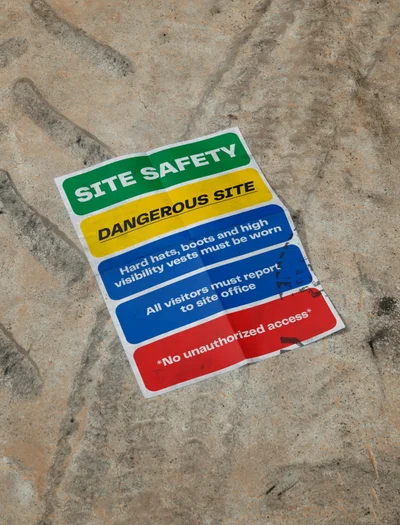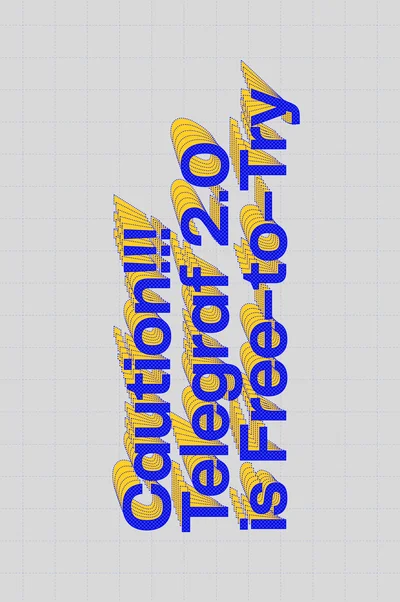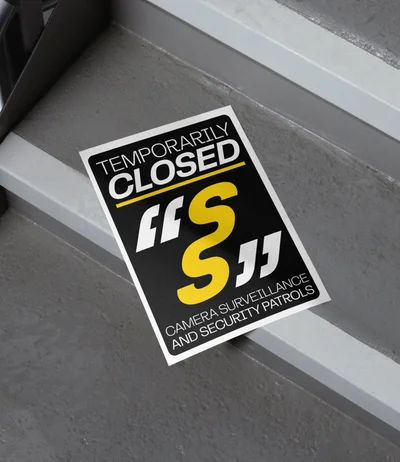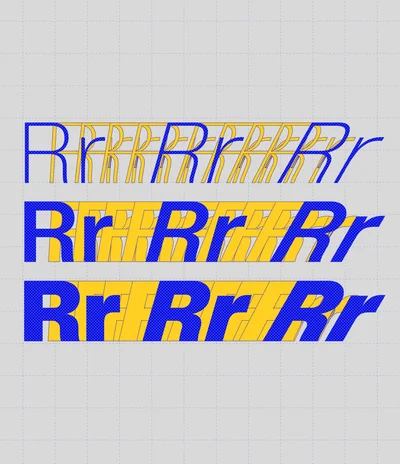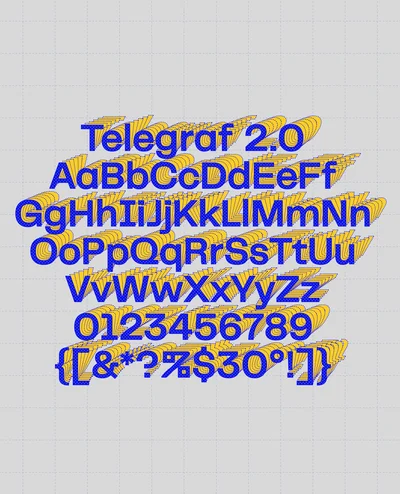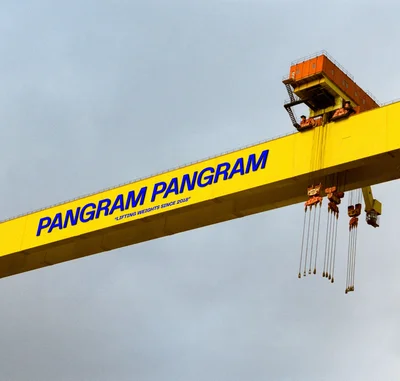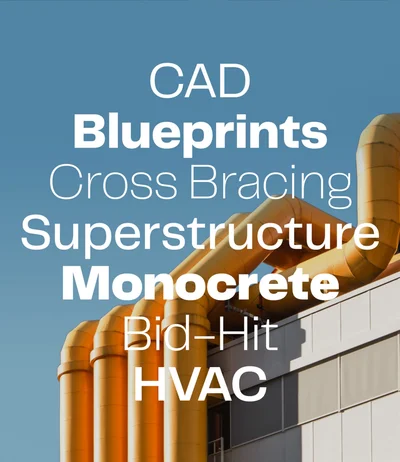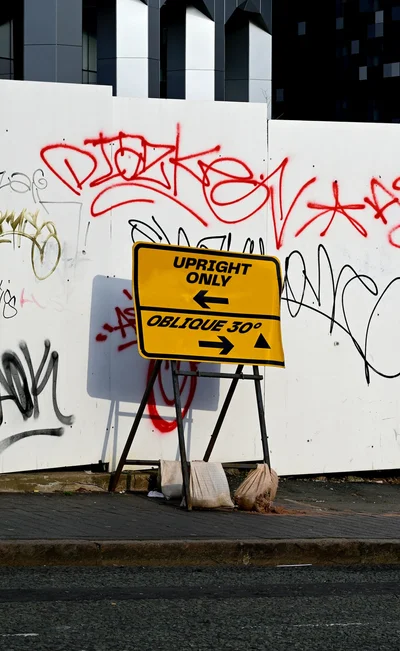
Knockout vs Telegraf
Knockout is a display typeface while Telegraf takes a sans-serif approach. Where Knockout leans sports, Telegraf brings retro. Compare which suits your Headlines project.
Design overlap:60%
Knockout
Condensed
Bold
DisplaySports
Telegraf
Condensed
BoldRetro
Display
Knockout
Telegraf
Feature Knockout Telegraf
Classification display sans-serif
Variable Font No No
Weights Multiple Multiple
Italics Yes Yes
Language Support latin, latin-extended latin, latin-extended
Source Hoefler&Co Pangram Pangram
Recommended: Knockout
• sports design character
• Suited for Sports and Posters
• From hoeflerco
Consider: Telegraf
• retro design character
• Suited for Retro
• From pangram-pangram